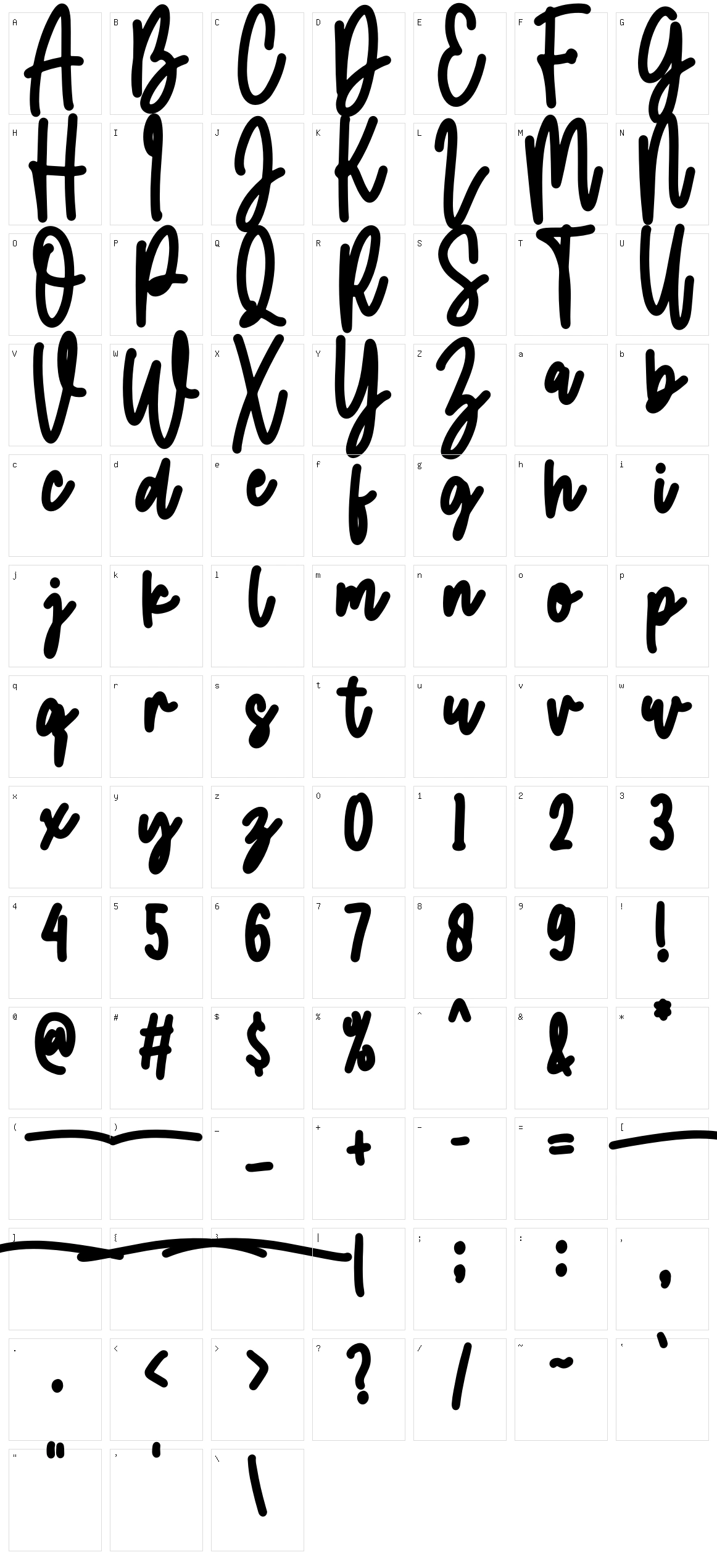
The free font Jaroslaw is carefully designed by NJ Studio, showcasing a thoughtful balance of creativity and usability and falls under the Script font style. When you download the ZIP file, it contains only 48.42 KB of font files, making it lightweight and quick to download. Please review the license details below to understand permitted usage and distribution rights. If license information is not available, we recommend using this font for personal projects only or contacting the author directly for commercial usage permissions.